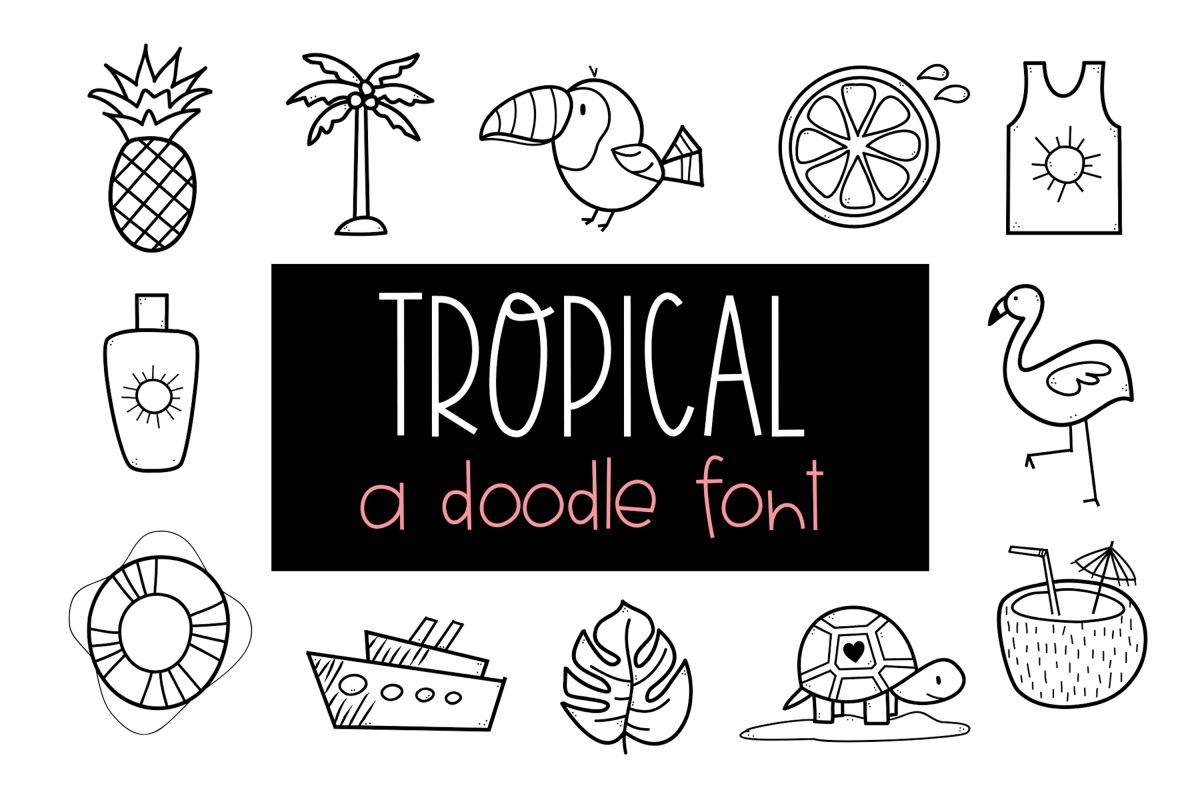
Tropical - A Tropical / Summer Doodle Font
KATropicalDoodles-Medium
Tropical is a doodle (dingbat) font.
It includes 52 hand-drawn, tropical/summer doodles.
Instead of a letter showing up, a small doodle will!
You can resize the doodle, color the doodle and add text to the doodles!